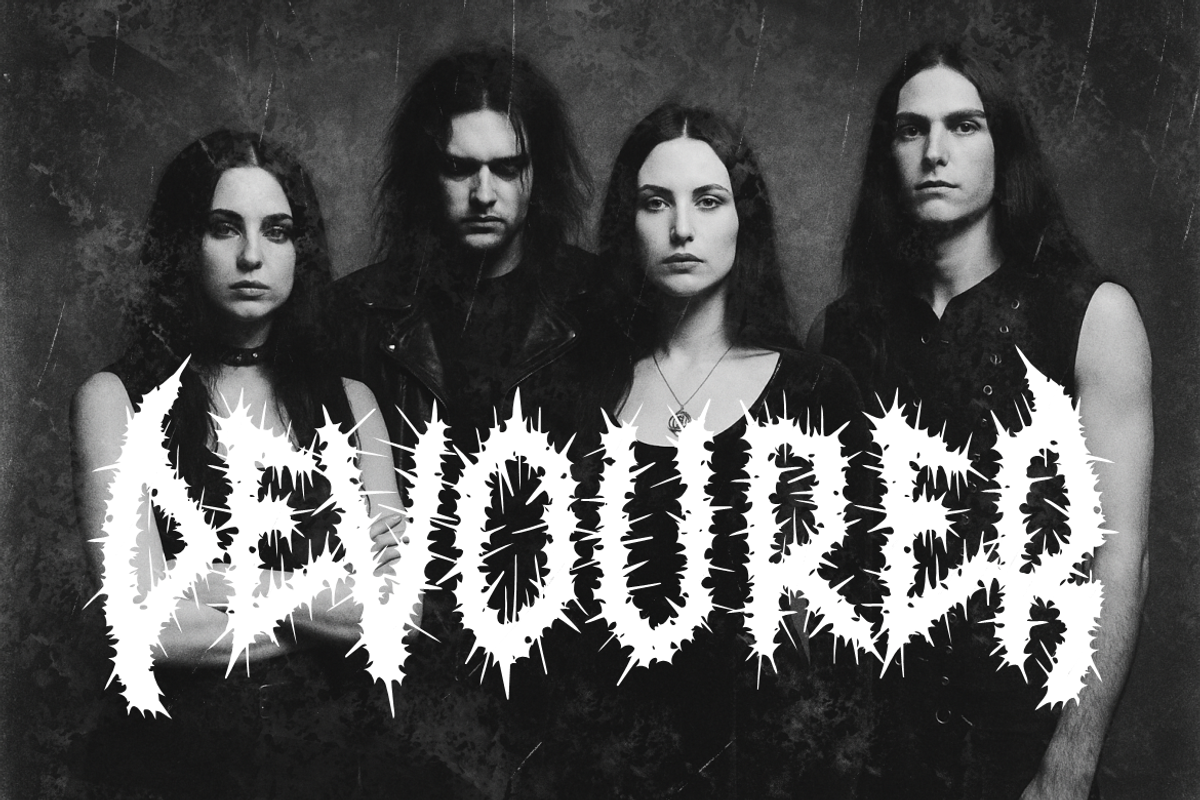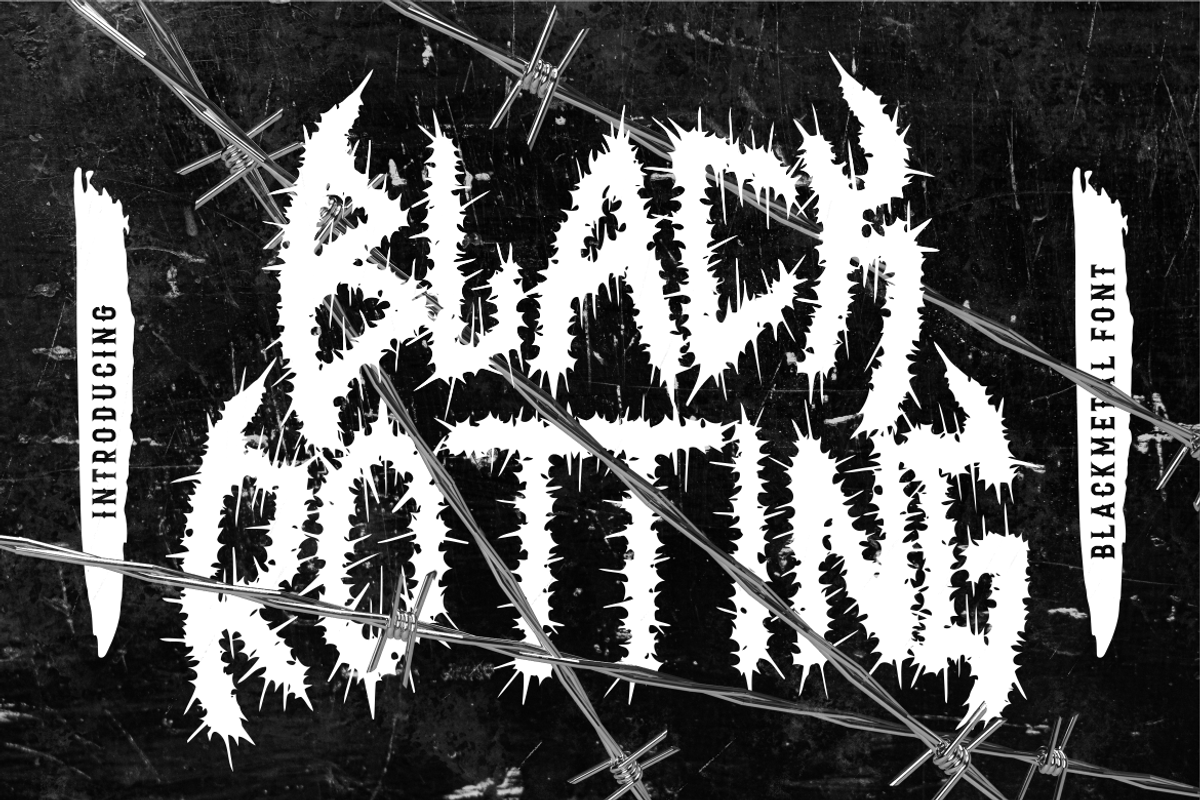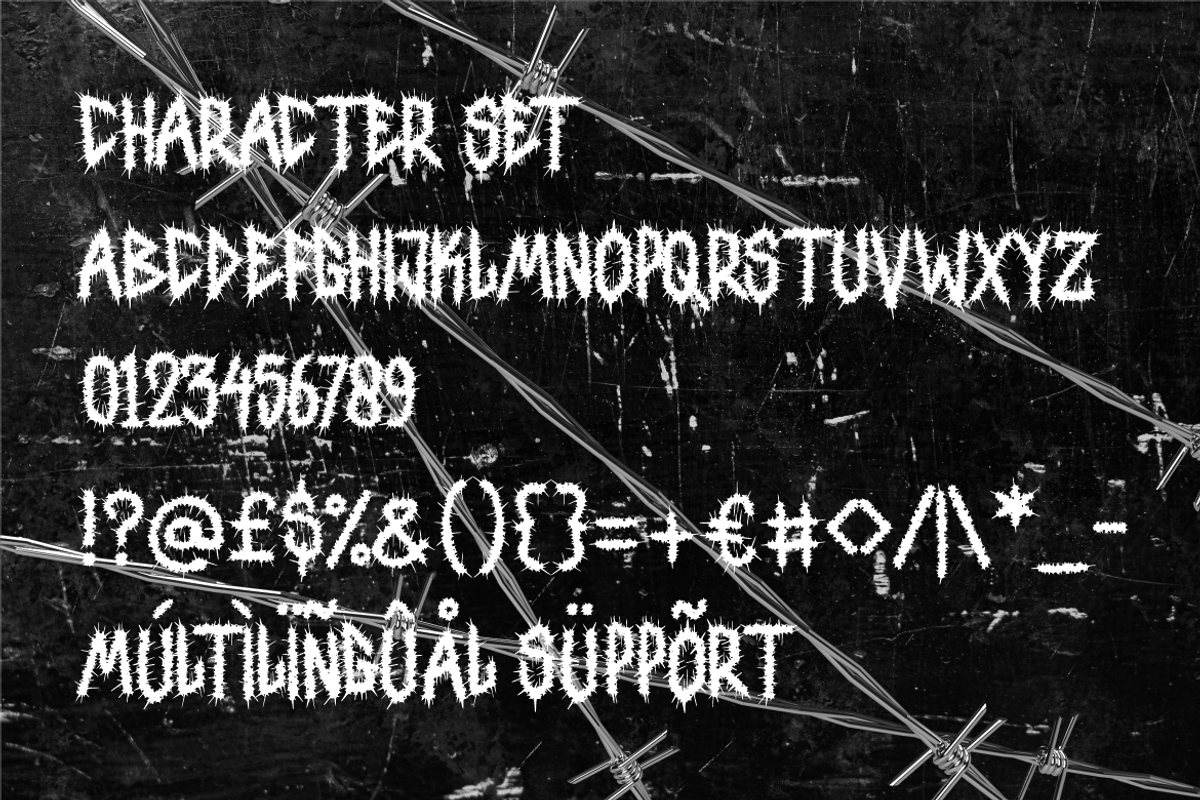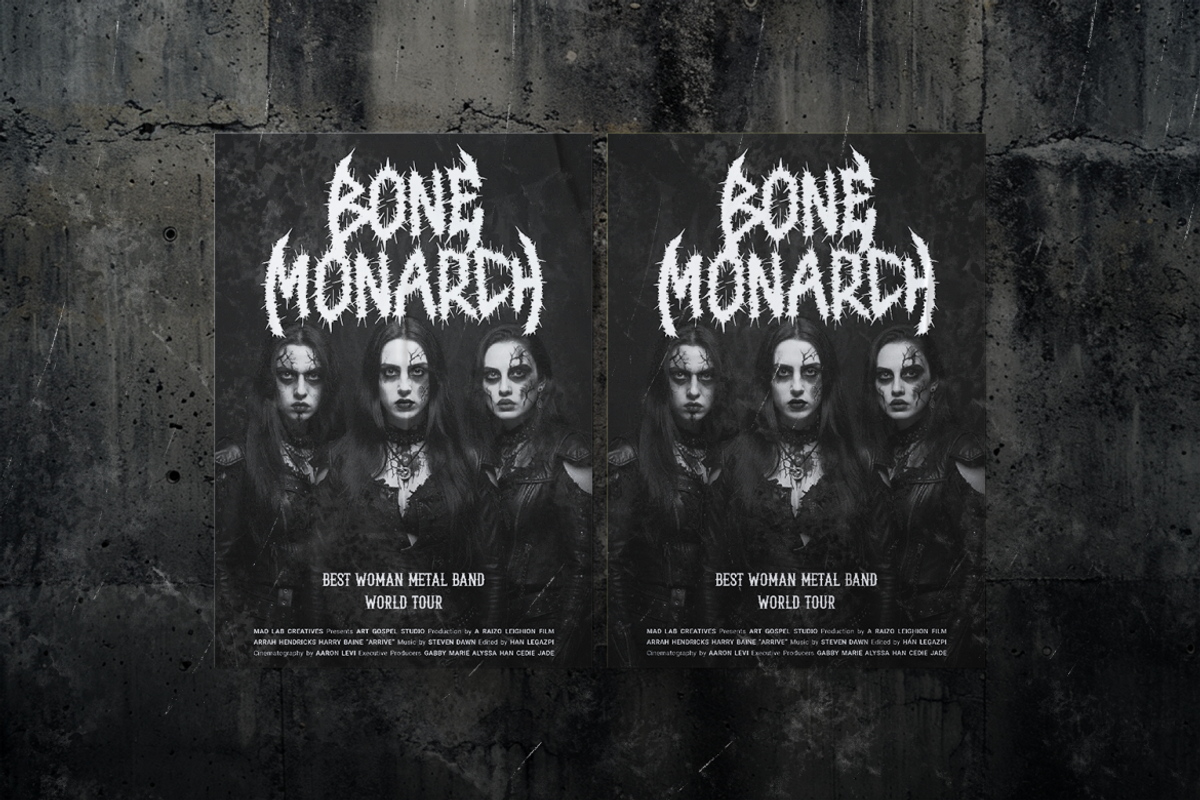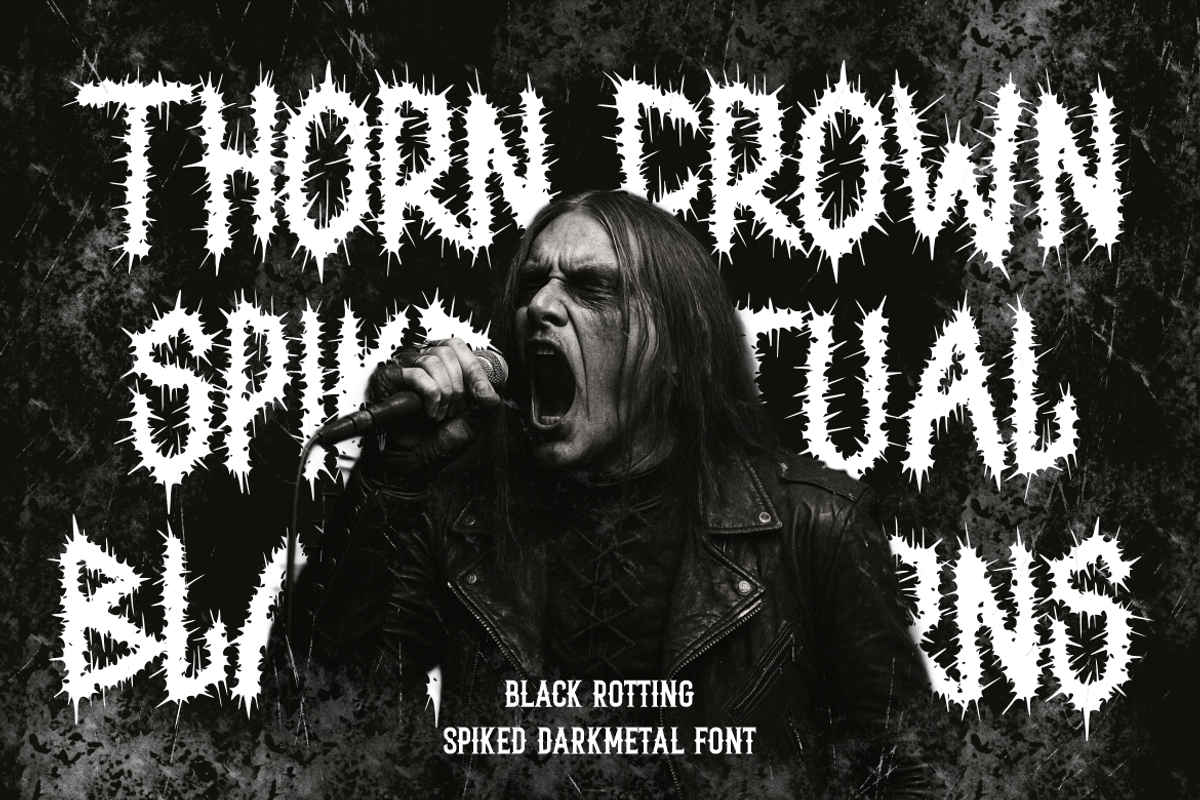
Black Rotting Spiked Darkmetal Font
Black Rotting Spiked Darkmetal Font is a brutal display typeface built to express intensity, darkness, and raw underground energy. The letterforms feature sharp spikes, thorn-like extensions, and irregular edges that feel aggressive and untamed. Each character appears dense and compact, with uneven contours that create a rough visual rhythm. The structure leans toward bold and heavy proportions, while narrow inner spaces enhance a claustrophobic and oppressive tone. Subtle distortion across strokes adds a decayed texture, giving the font a hostile and organic presence. Vertical stress dominates the shapes, helping letters stand firm and imposing in large-scale compositions. This construction makes the typeface visually loud without relying on ornamentation, allowing form alone to communicate brutality. The overall appearance feels chaotic yet controlled, suitable for designers who want extreme character without sacrificing clarity at headline sizes.
Black Rotting Spiked Darkmetal Font is designed for logos, branding, and visual identities that demand authority and darkness. It works exceptionally well for metal band logos, album titles, tour posters, and underground merchandise. The sharp silhouettes grab attention instantly, making the font ideal for headlines, posters, stickers, and packaging designs. Its aggressive tone supports themes related to darkmetal, blackmetal, deathmetal, and hardcore music cultures. The font also performs strongly in film titles, book covers, magazine headers, and promotional visuals that require a threatening or rebellious mood. Despite its extreme appearance, spacing remains balanced enough for short phrases and impactful words. Black Rotting Spiked Darkmetal Font empowers designers to communicate power, danger, and intensity through typography alone. This font becomes a visual weapon for projects that refuse to feel safe or ordinary.